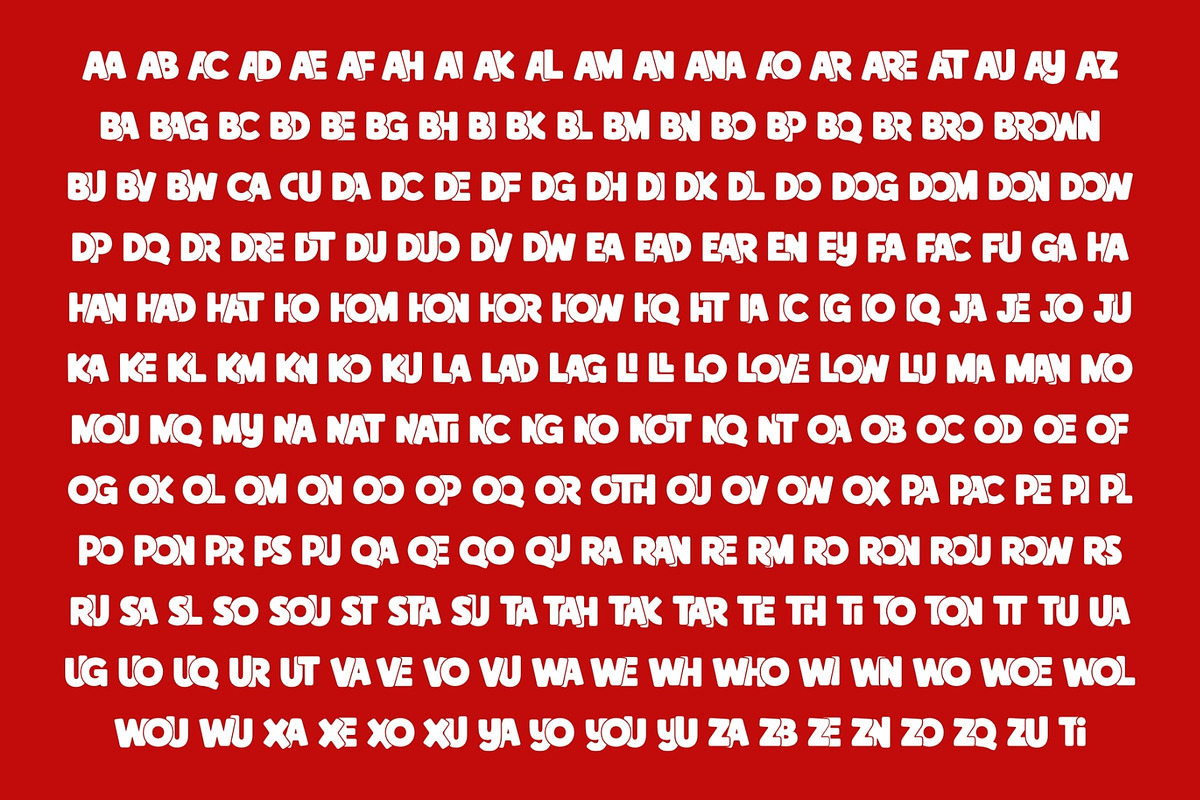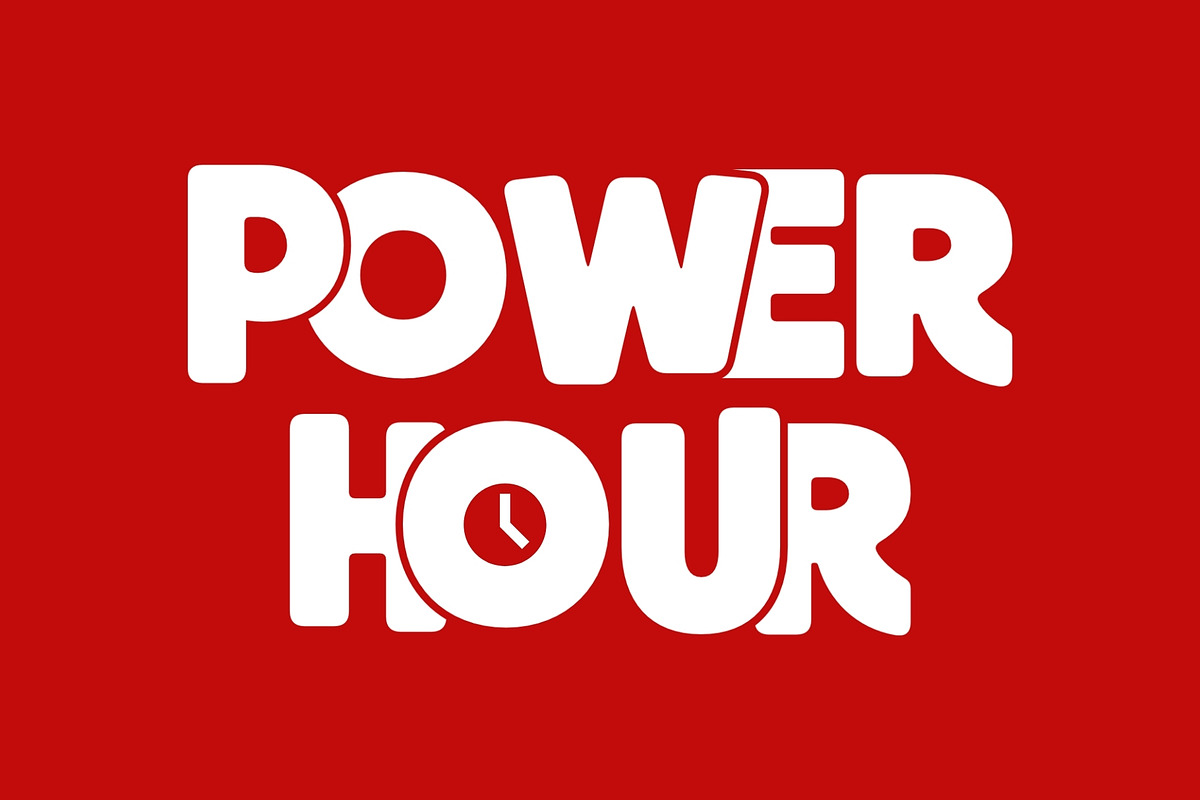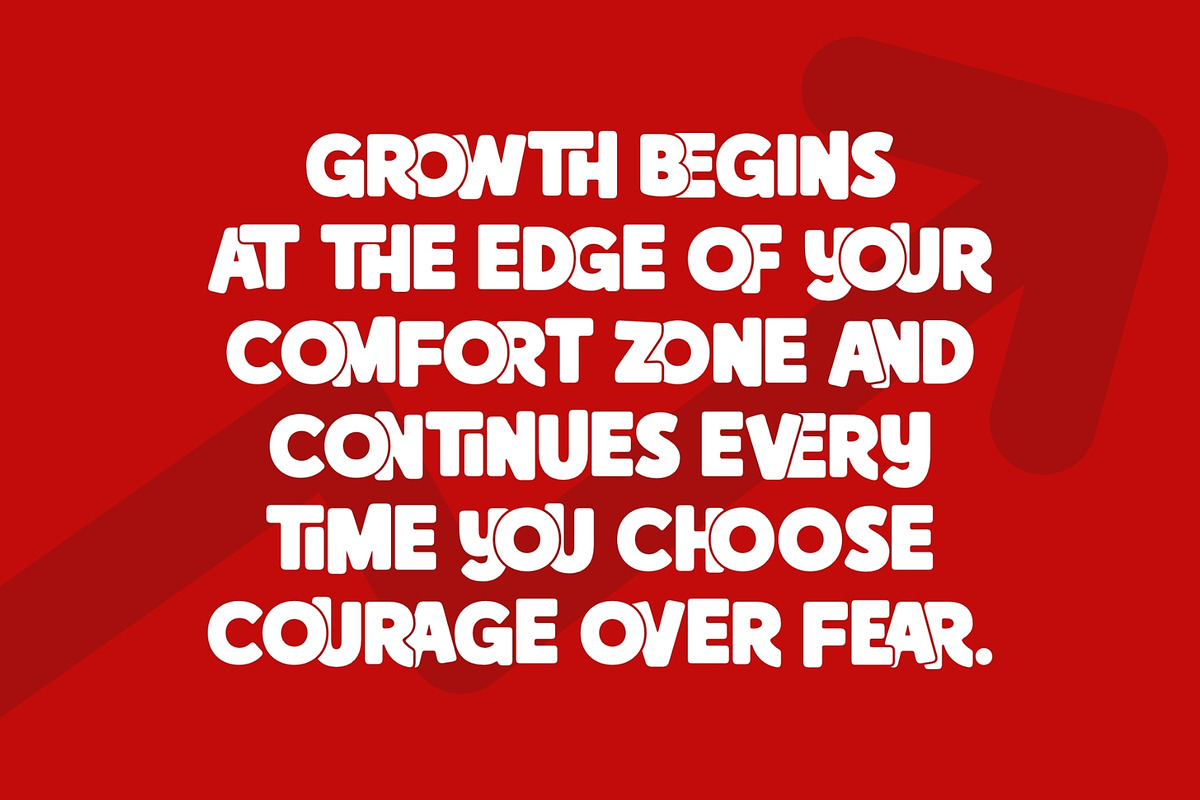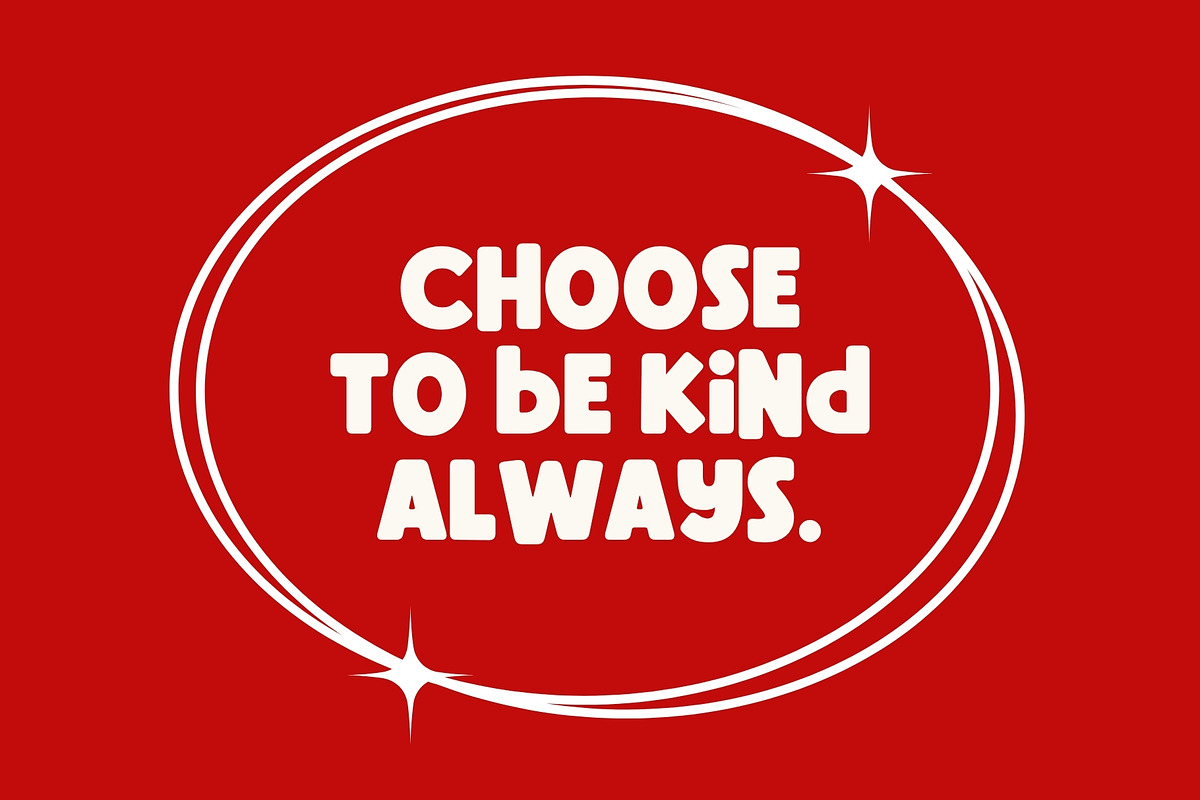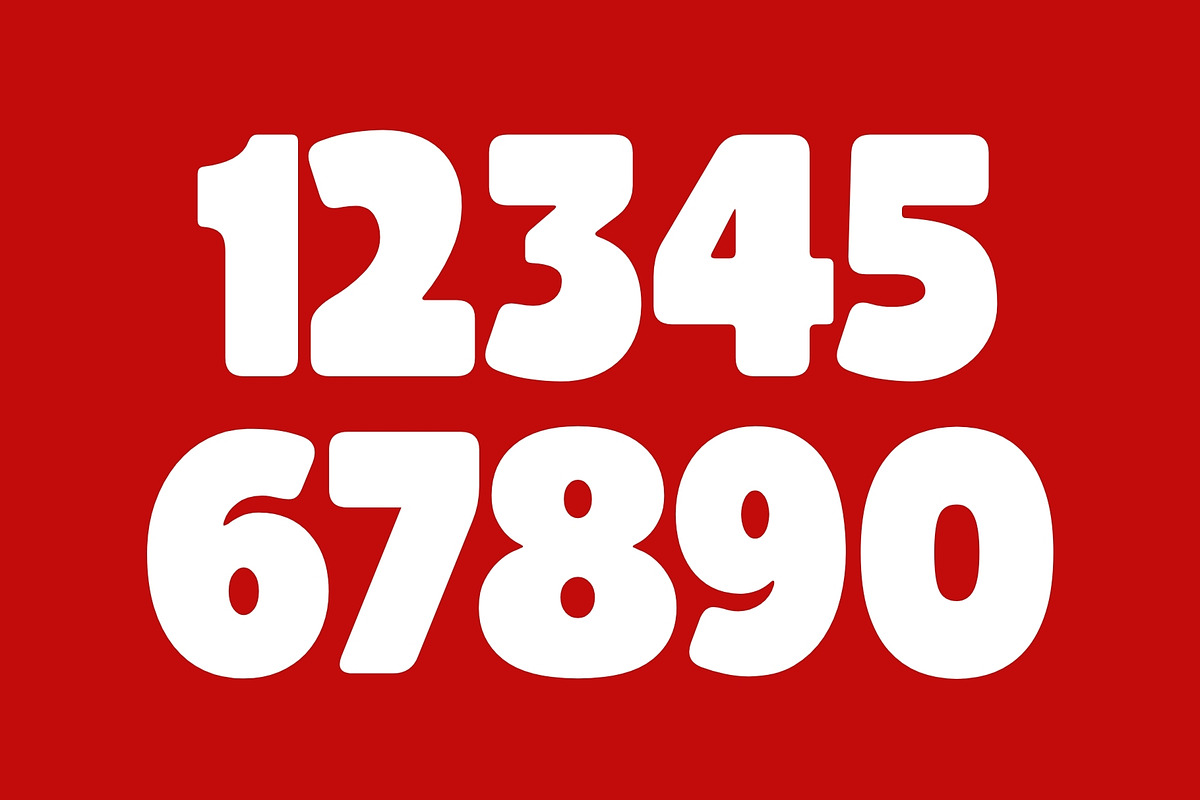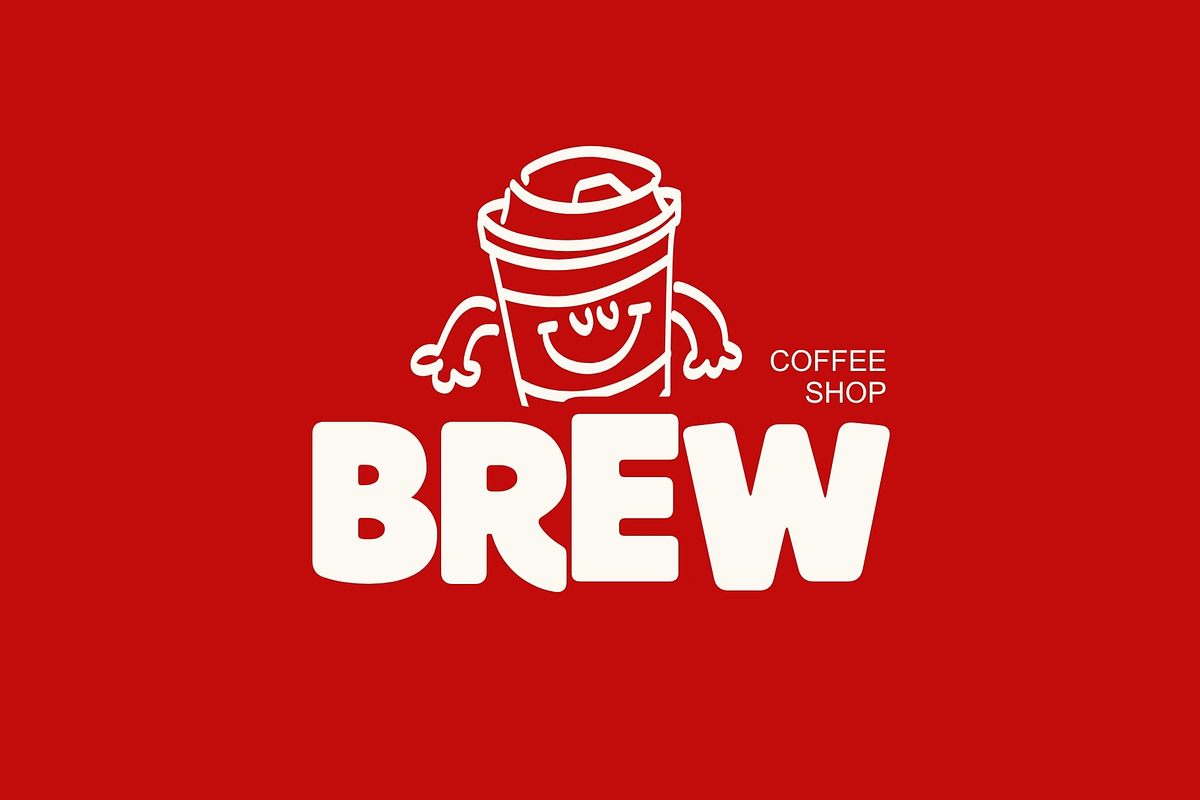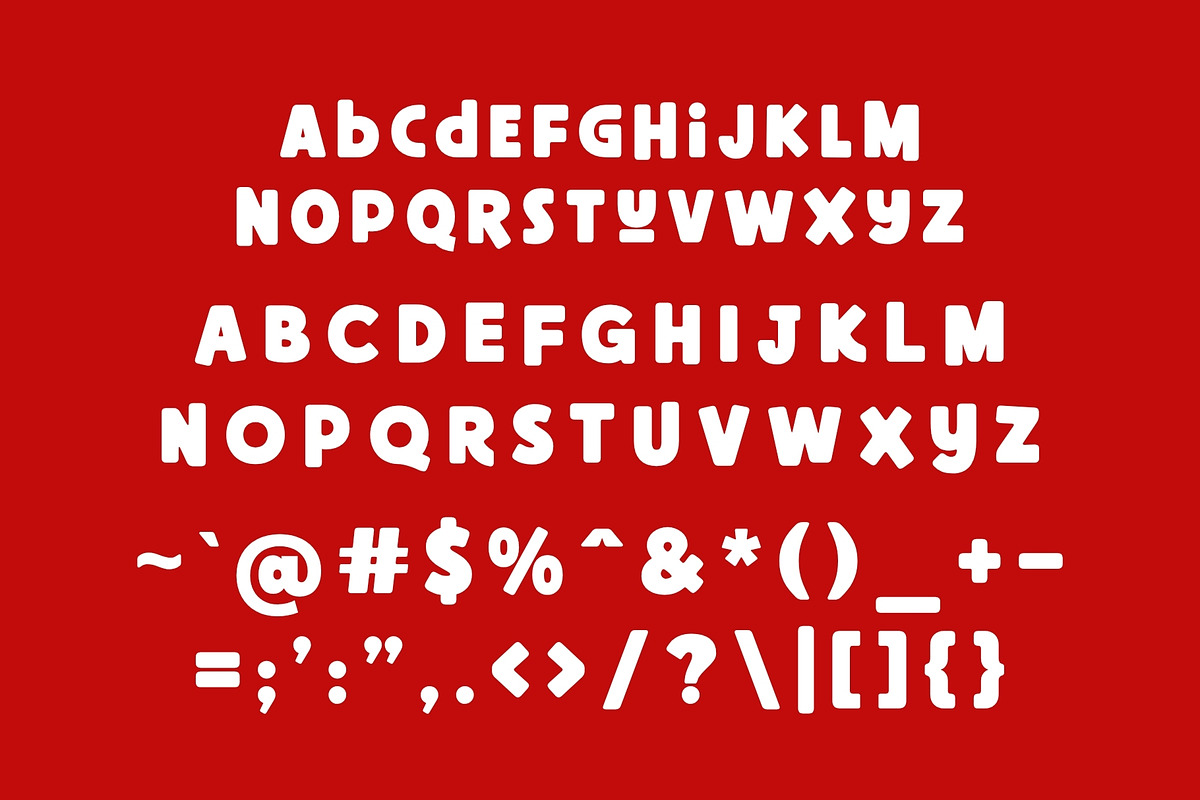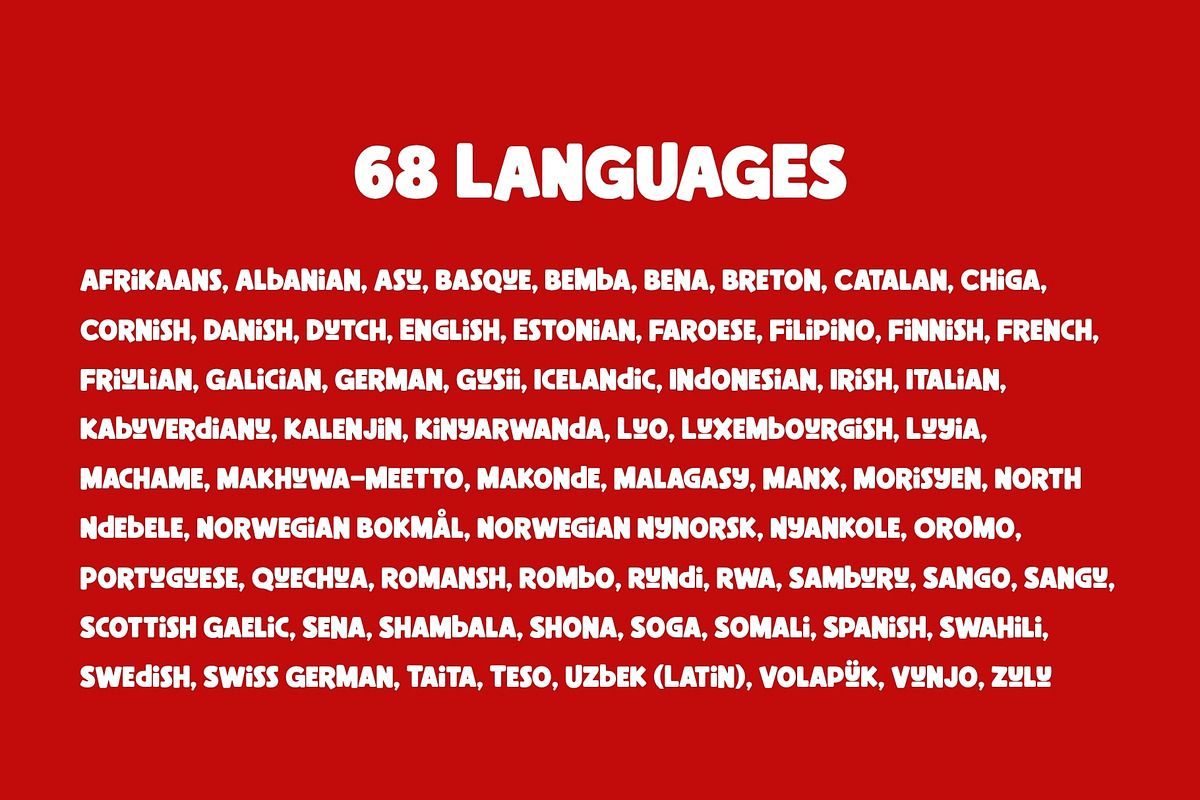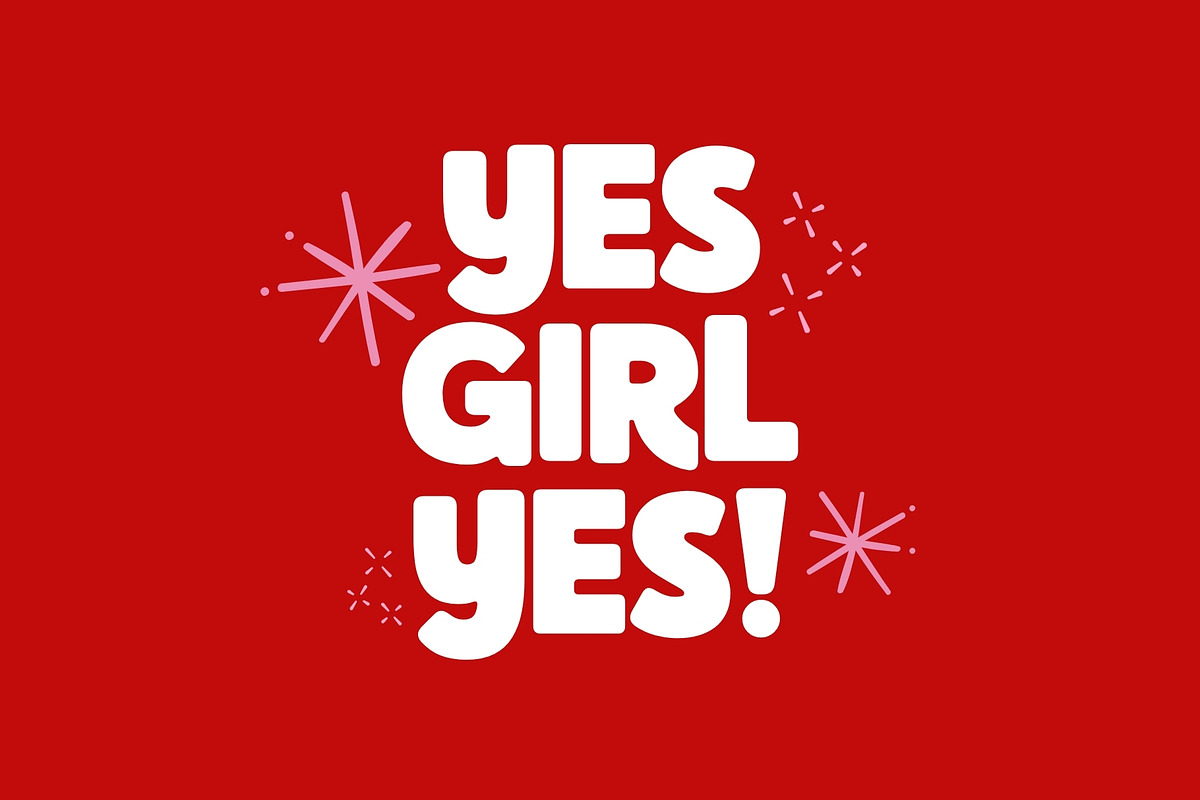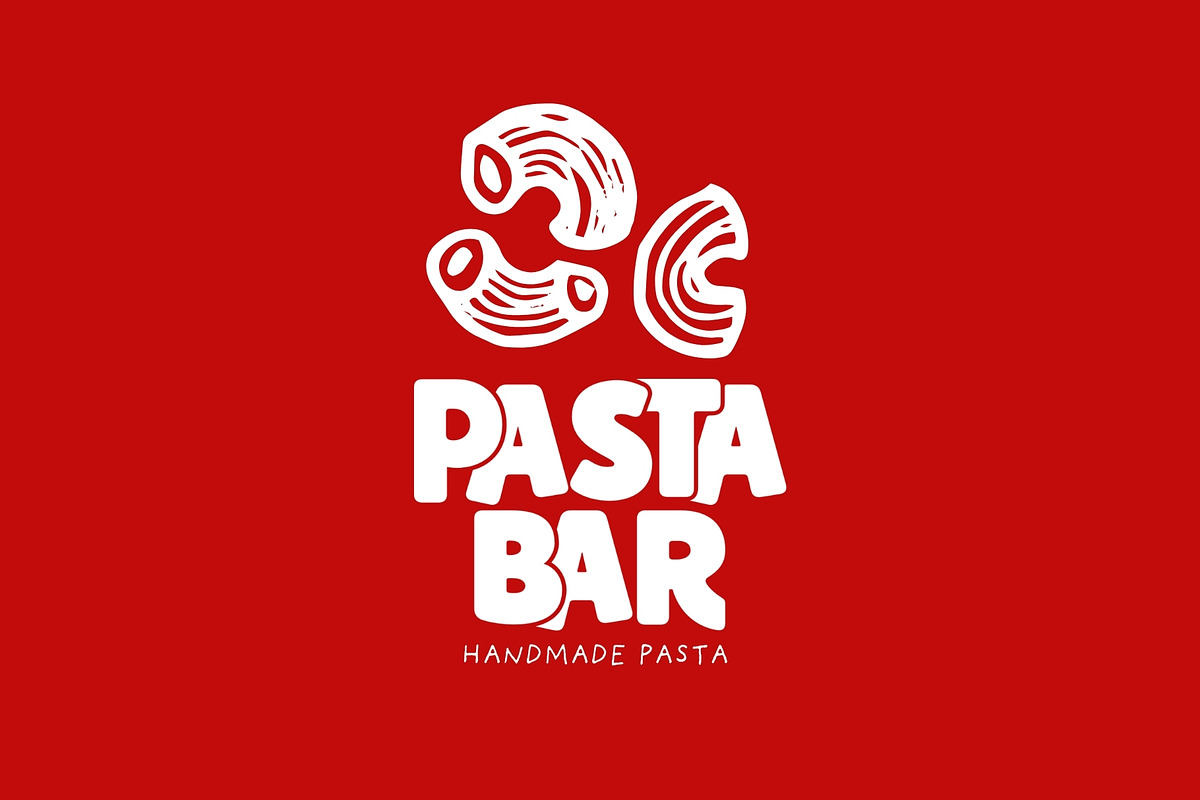
Dimpleton - All Caps Ligature Font
Say hello to Dimpleton, a bold all-caps display font bursting with charm, happiness, and irresistible cuteness. Designed with soft rounded corners and a playful character style, Dimpleton instantly brings warmth and joy to any design it touches.
What makes Dimpleton truly special is its extensive collection of ligatures, giving you hundreds of unique letter combinations to create more natural, fun, and eye-catching typography. These playful alternates allow your words to feel custom-made, adding personality and creativity with just a few keystrokes.
Whether you're creating adorable stickers, crafting projects, t-shirts, mugs, tumblers, sublimation products, greeting cards, social media graphics, classroom materials, party invitations, product packaging, YouTube thumbnails, or playful branding, Dimpleton delivers a bold and cheerful look that instantly captures attention.
Its chunky letterforms and rounded construction make it highly readable while maintaining a fun and friendly appearance. The font strikes the perfect balance between bold display typography and lovable cartoon-inspired design, making it an excellent choice for both personal and commercial projects.
Dimpleton is especially suited for creators, crafters, teachers, Etsy sellers, small businesses, and designers looking to add a dose of happiness to their work. From children's products to trendy merchandise, this font was built to make people smile.
Bold all-caps display font
Cute rounded letterforms
225 playful ligatures included
Highly readable and versatile
Perfect for crafting and Cricut projects
Great for t-shirts, mugs, tumblers, and sublimation
Ideal for stickers, quotes, invitations, and packaging
Numbers and punctuation included
If you're searching for a font that's fun, friendly, playful, and packed with personality, Dimpleton is ready to brighten your next creative project.